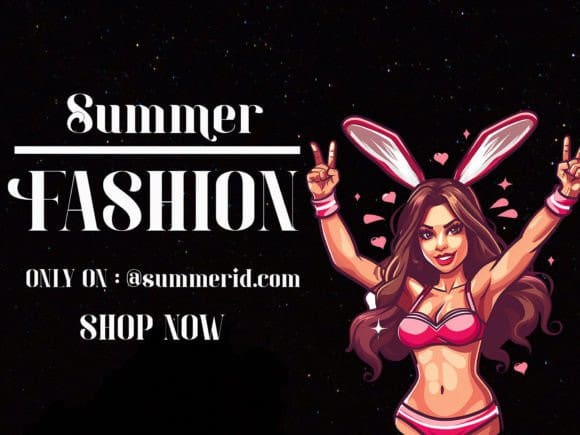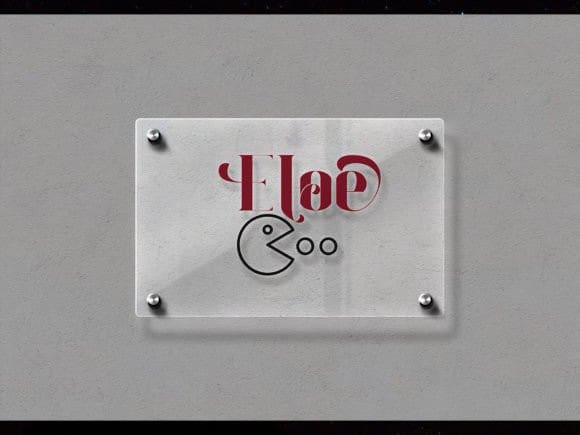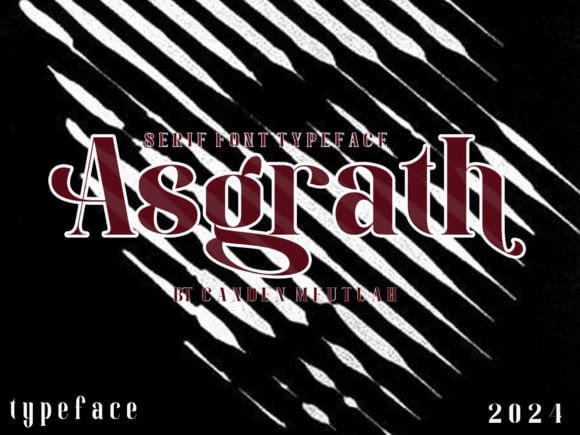
Asgrath Font
Asgrath Font by Canden Meutuah 21,072 downloads
Asgrath Font
Asgrath Font is a simple and elegant serif font full of modern style. This font is very suitable for many purposes such as branding, logos, wedding designs, social media posts, advertising, product packaging, product design, labels, photography, watermarks, invitations, stationery, and any project.